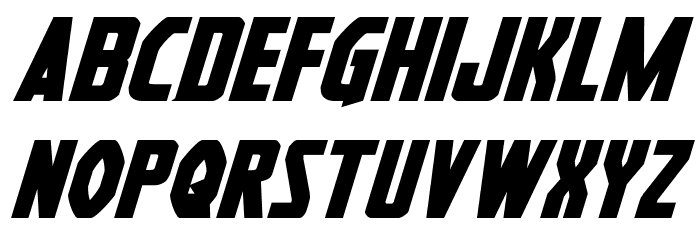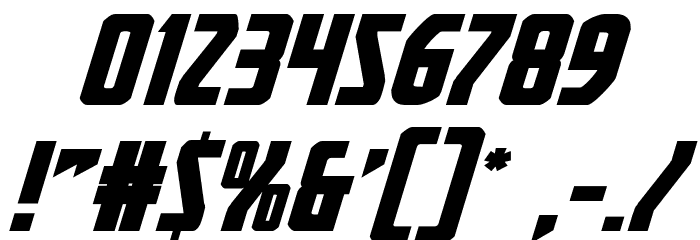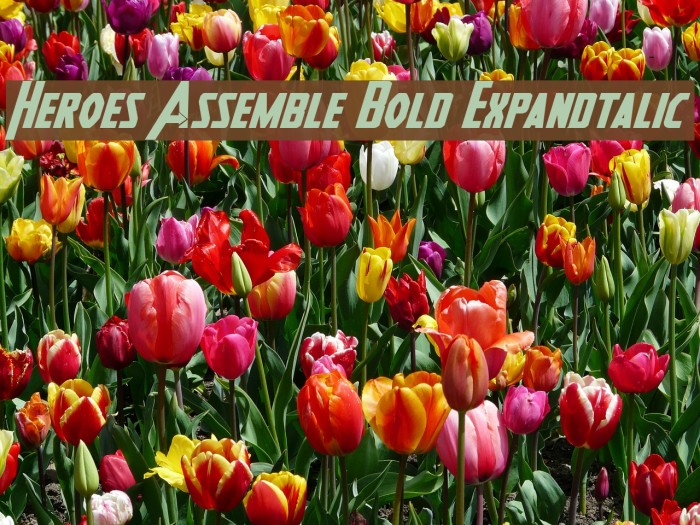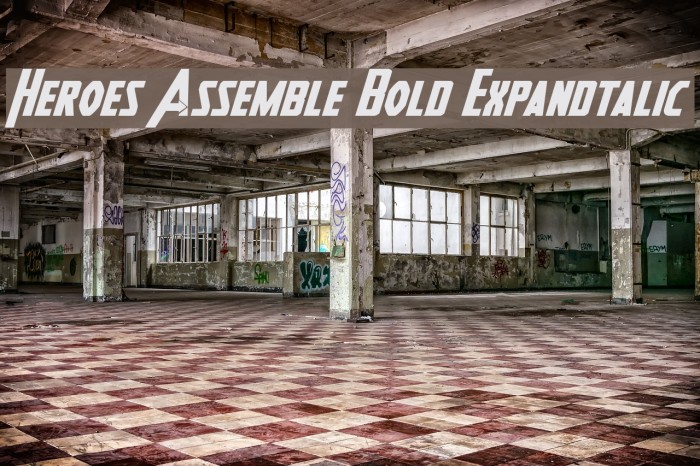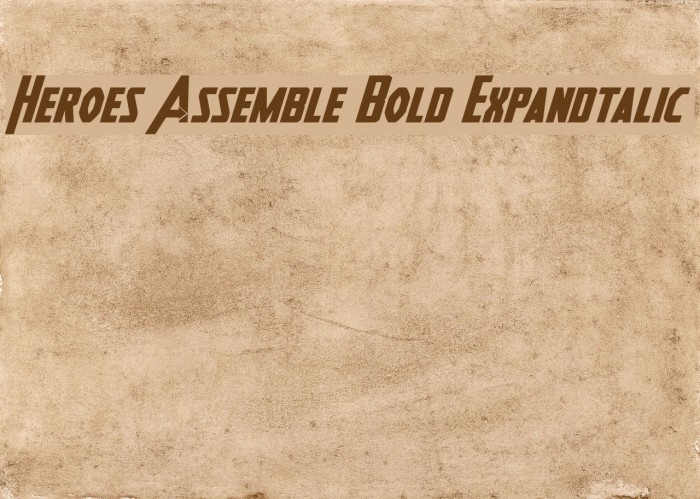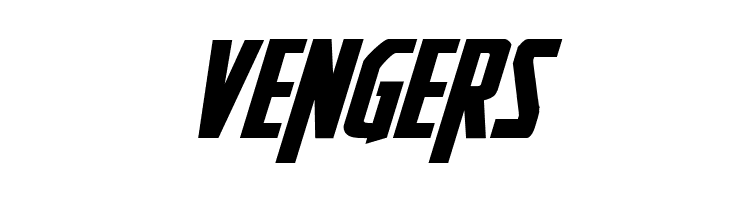
Heroes Assemble Bold Expandtalic Font
This font features a bold and dynamic style with a strong presence, characterized by its expanded and italicized form. The angular and sharp edges give it a futuristic and heroic feel, making it stand out in any design. The uppercase letters are particularly striking, with a slanted orientation that suggests movement and energy. The numbers and special characters maintain the same boldness and angularity, ensuring consistency across all characters. This font is ideal for projects that require a sense of action and excitement, such as movie posters, video game titles, or comic book covers.
A bold, expanded, and italicized font with a dynamic and futuristic style.
- Proposed Projects: Ideal for movie posters, video game titles, comic book covers, and any project needing a heroic and energetic feel.
- Width: Expanded
- Overall Style: Futuristic, Heroic